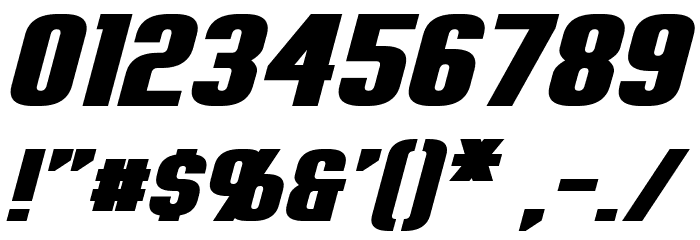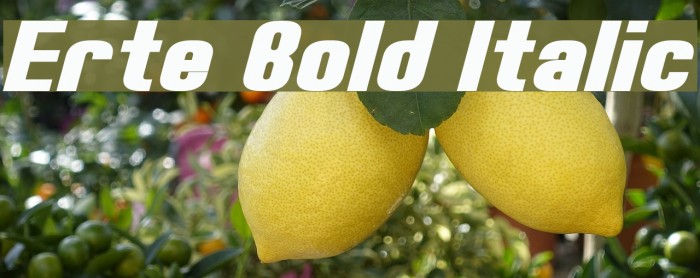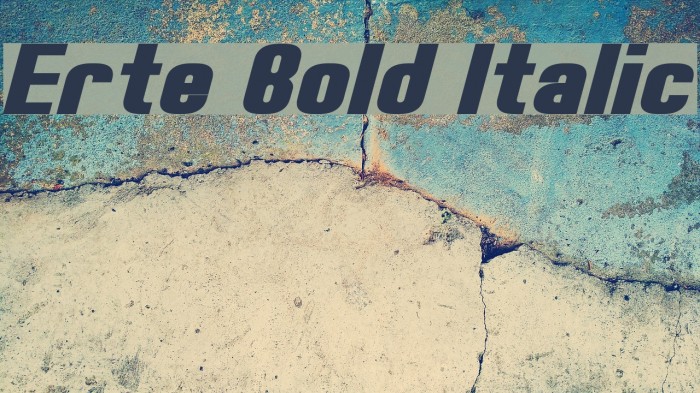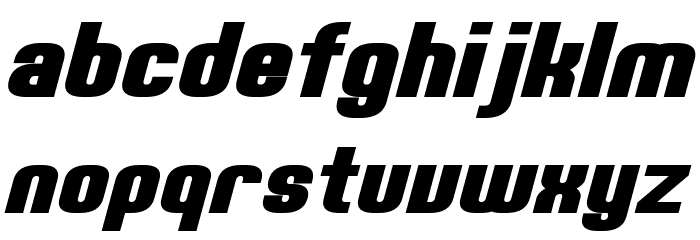
Erte Bold Italic Font
This font exhibits a bold and italicized style with a modern flair. The characters are designed with a strong, confident presence, featuring thick strokes and a slight slant that adds dynamism and movement. The uppercase letters are robust and commanding, while the lowercase letters maintain a consistent weight, ensuring readability. The numerals are equally bold, providing a cohesive look across all characters. Special characters are included, maintaining the same bold and italic characteristics, making this font versatile for various applications.
• Proposed Projects: Ideal for branding, advertising, headlines, and any project requiring a strong visual impact.
• Category: Sans-Serif
• Bold: Yes
• Italic: Yes
• Weight: Bold
• Width: Normal
• Character Spacing: Normal
• Contrast: Medium
• Overall Style: Modern
• Use Case: Headlines, Logos, Branding